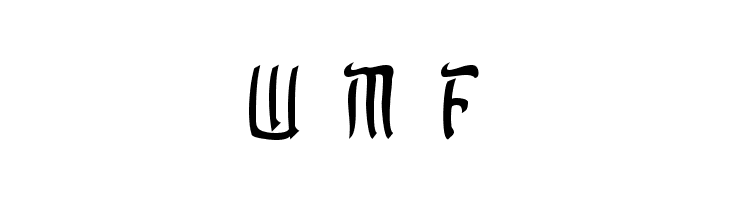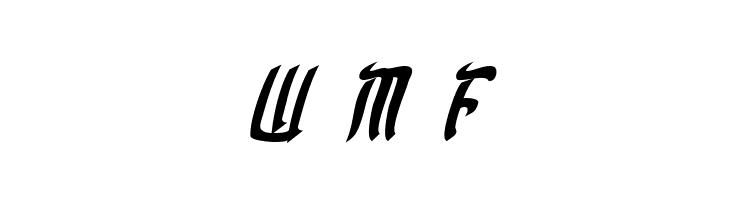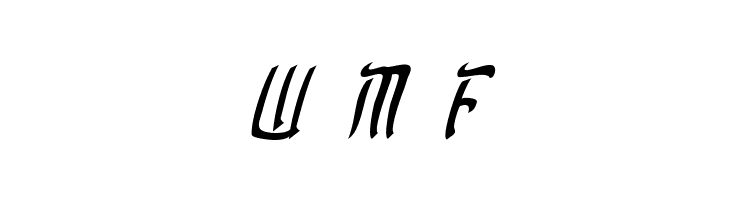
Taibaijan Font
A bold, dynamic font with sharp, angular lines and an artistic flair.
Taibaijan Bold Font
A bold, brush-like font with a dynamic, calligraphic style.
Taibaijan Italic Font
A bold, italic font with dynamic strokes and a modern, artistic flair.
Taibaijan Bold Italic Font
A bold, italicized font with dynamic, flowing characters and strong slant.